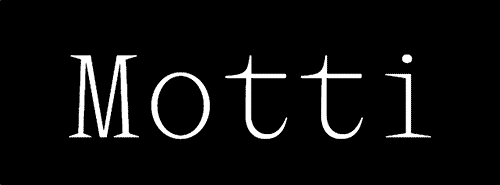
GFT Motti - 7 Styles Font Family
- GTF Motti is a monospaced typeface tailored with spiky serifs. From the thinnest weight bringing elegance and a refined touch, to the Black weight that can be used as a striking display font for titles, this comprehensive font is designed and crafted for a wide range of applications. Designed by Mathis El Idrissi and Kenneth Knutsen (GTF).